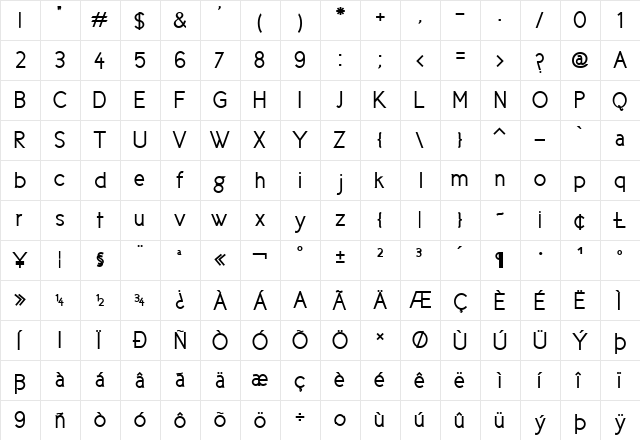
Cicle Gordita
| Foundry | La Tipomatika |
| Designer | La Tipomatika (Digital Type Foundry) |
Design Context for Cicle Typeface
Cicle takes a measured approach to typography — its balanced proportions and neutral character make it a reliable workhorse for both digital and print work.